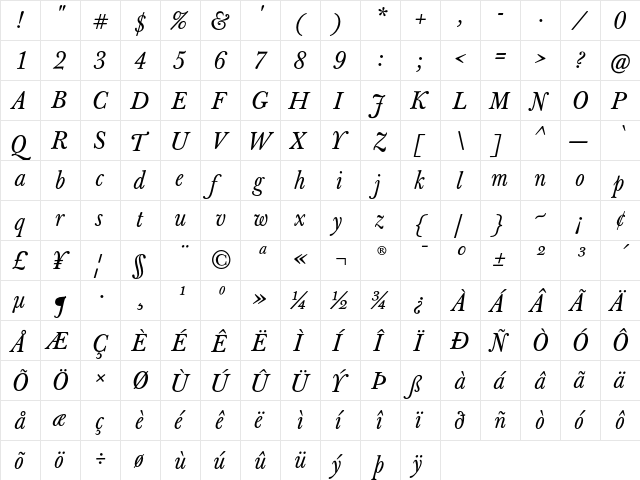
J Baskerville TxN Italic
Design Context for J Baskerville TxN Typeface
J Baskerville TxN takes a measured approach to typography — its balanced proportions and neutral character make it a reliable workhorse for both digital and print work. The slanted form adds forward momentum and visual energy.
Pro Tip: Use J Baskerville TxN for emphasis, pull quotes, and subheadings where its slanted energy can add rhythm to the layout.